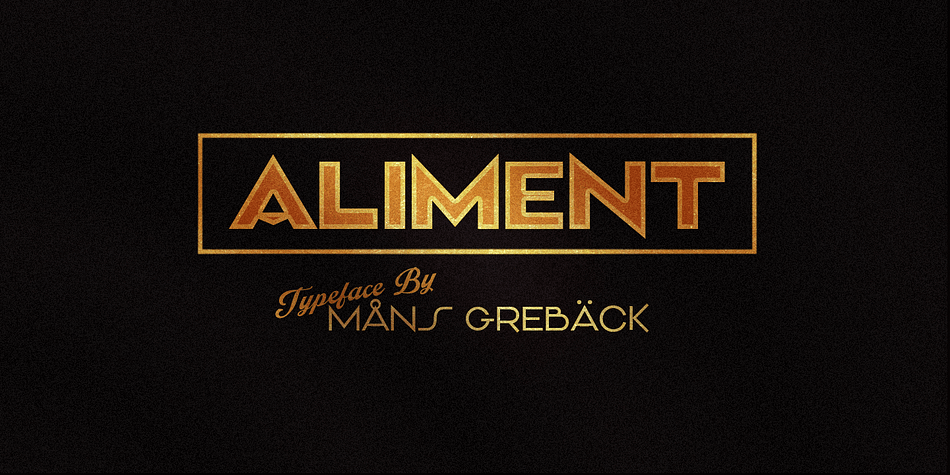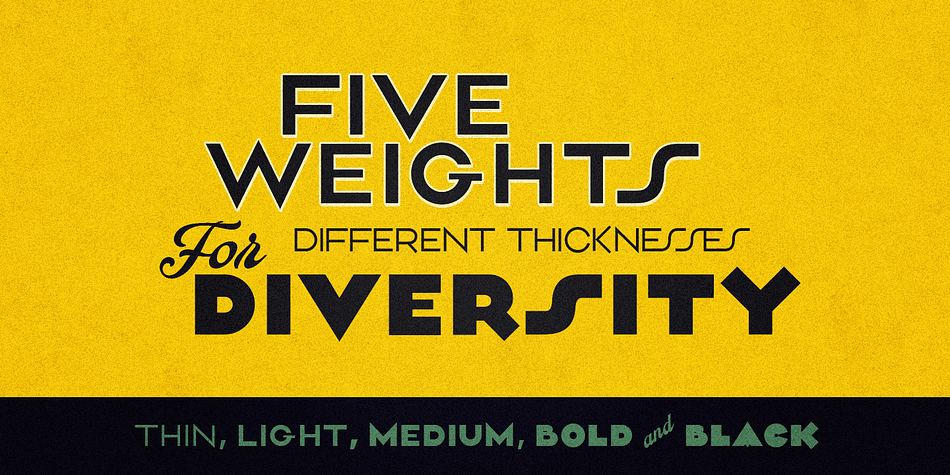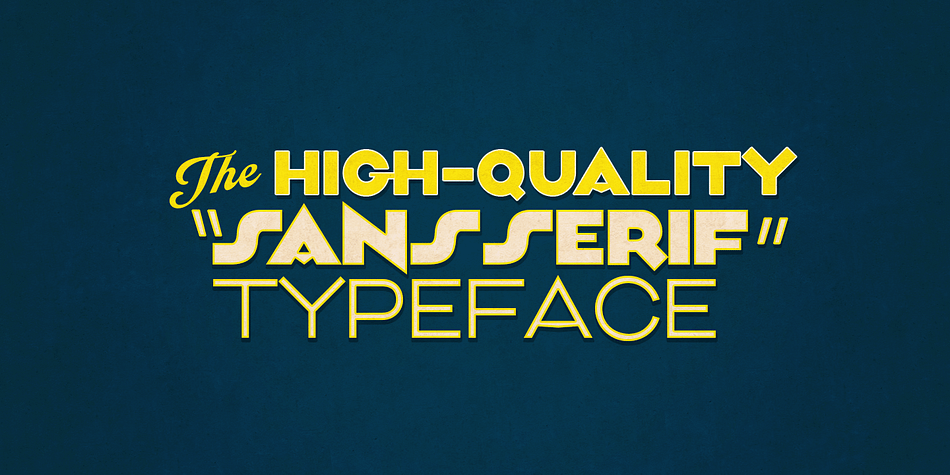
Designed by Måns Grebäck, Aliment is a display sans font family. This typeface has five styles and was published by Måns Grebäck.
Aliment is a classic sans serif typeface. Its sharp and geometrical shapes gives any design project a timeless, confident style.
Created by Måns Grebäck during 2017-2018, this high-quality typeface family contains five weights:
Aliment Thin, Aliment Light, Aliment Medium, Aliment Bold and Aliment Black
It contains all symbols and punctuation you’ll ever need.
The font also has support for all major European and Latin-based languages.